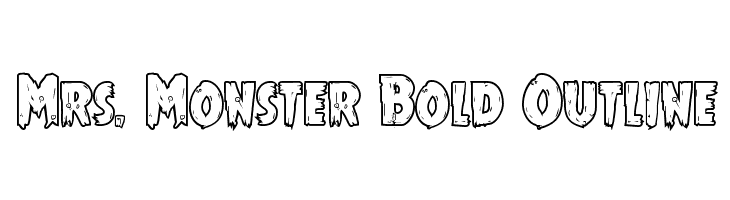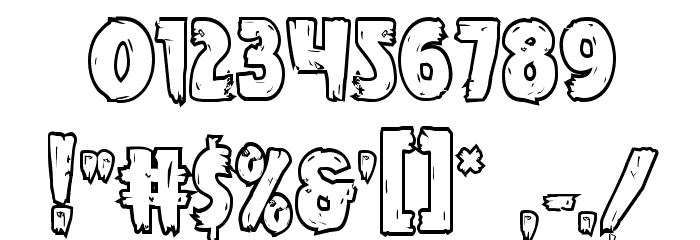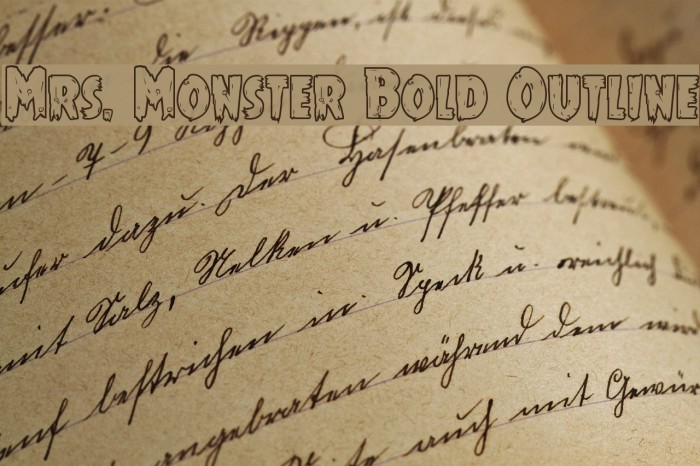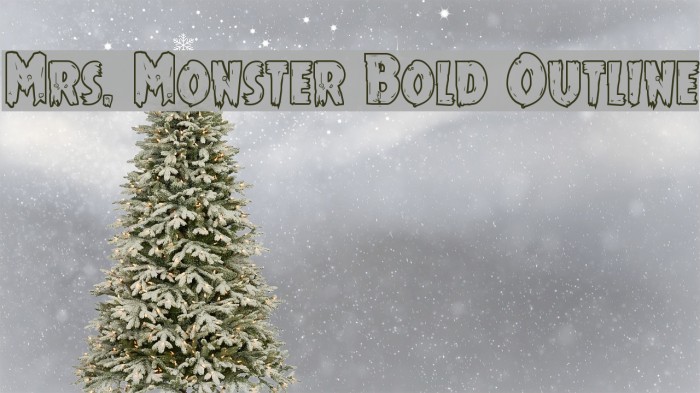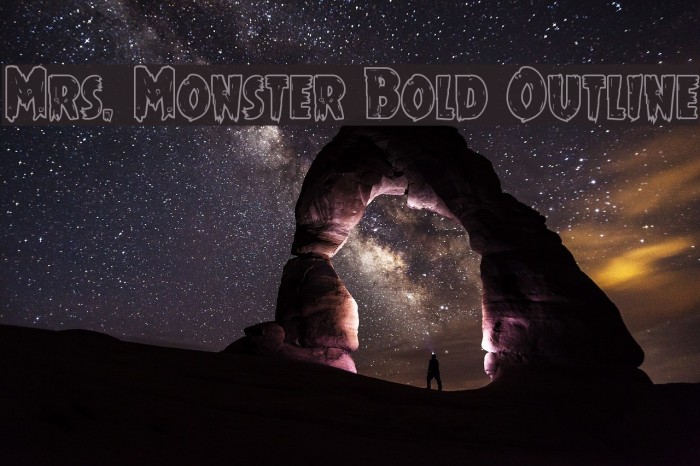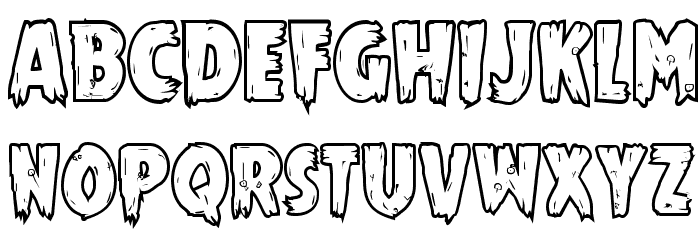
Mrs. Monster Bold Outline Font
This font features a bold and playful outline style with a slightly distressed appearance, giving it a quirky and fun vibe. The characters are thick and robust, with irregular edges that create a sense of movement and energy. The uppercase and lowercase letters maintain a consistent style, while the numbers and special characters complement the overall design. This font's unique outline and boldness make it stand out, perfect for projects that require a touch of whimsy and creativity.
A bold, playful outline font with a distressed, energetic style.
• Proposed Projects: Ideal for Halloween-themed designs, children's book covers, playful posters, and creative branding projects.
• Category: Decorative/Display
• Overall Style: Decorative
• Use Case: Headlines, Logos